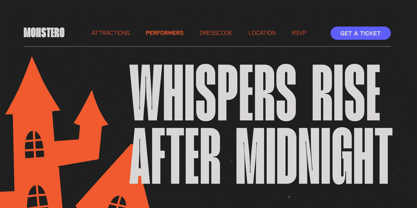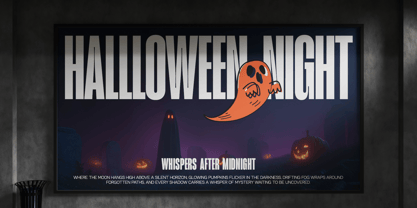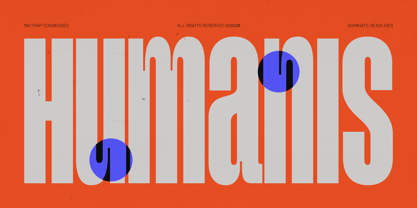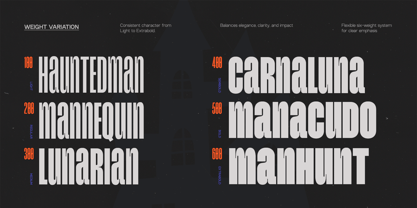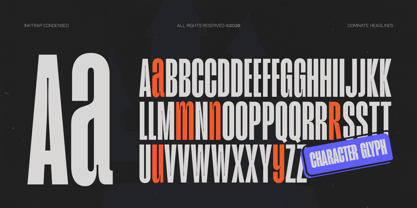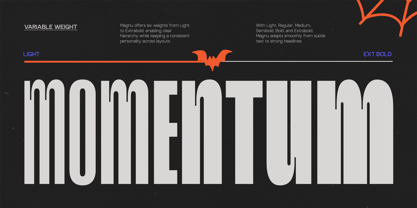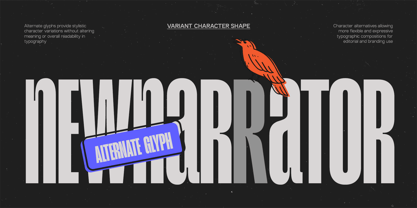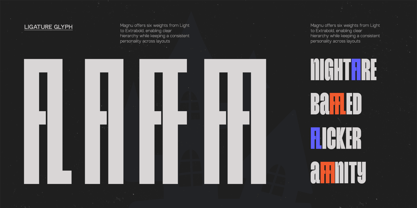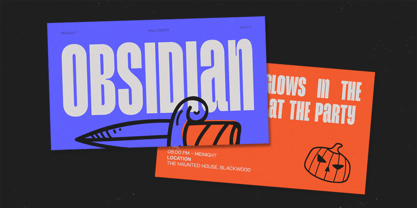
GC Magnu
by Onyx Studio
The GC Magnu Font Family was designed by Muhammad Hafiizh Solana and published by Onyx Studio. GC Magnu contains 6 styles and family package options. More about this family
GC Magnu – Inktrap Condensed is a modern sans serif typeface engineered with precision, functionality, and bold character. Featuring distinctive inktrap details and a condensed structure, it is designed to maximize readability while maintaining a strong and contemporary visual presence. Built for high-performance typography, GC Magnu excels in tight spaces without sacrificing clarity. Its sharp geometry and carefully crafted inktraps enhance legibility across various sizes, making it ideal for branding, editorial layouts, user interfaces, packaging, and data-driven design systems. Combining technical efficiency with modern aesthetics, GC Magnu delivers a confident and structured tone that works seamlessly across both digital and print media. Whether used for compact headlines, impactful titles, or dense text compositions, it provides clarity, rhythm, and visual strength. Features: Uppercase & Lowercase Numbers & Punctuation Inktrap Condensed Construction Multilingual Support (170+ Languages) Bring precision, efficiency, and modern clarity to your typography with GC Magnu – Inktrap Condensed.
GC Magnu